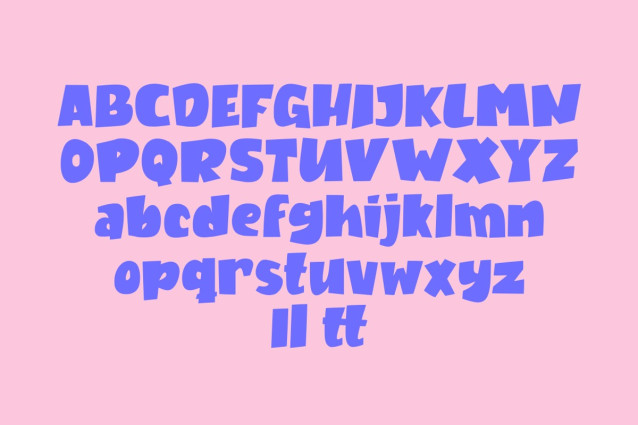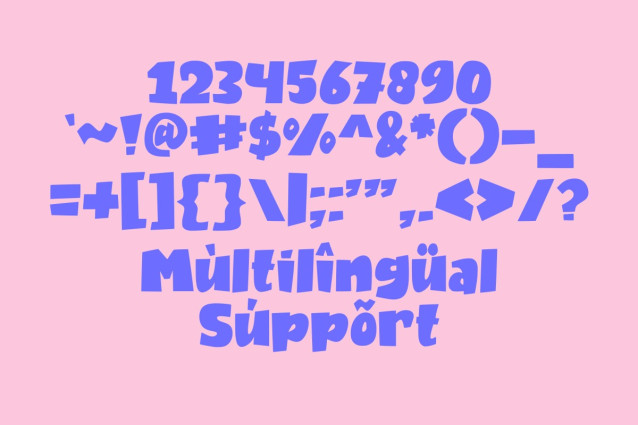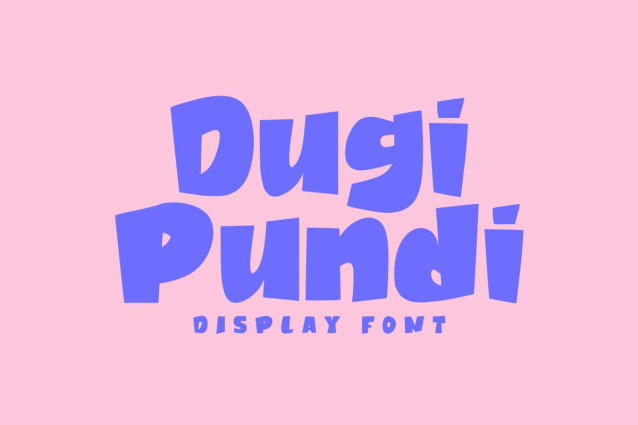
Dugi Pundi Font
Dugi Pundi Font is a chunky, comic, and cartoon display font. With its neat and joyful personality, this font will enhance any project you wish to create!